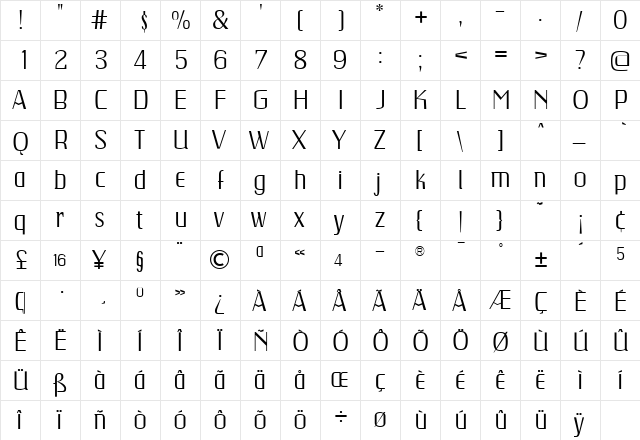
TFRainchkExpanded Light Font Preview
TFRainchkExpanded Light
TFRainchkExpanded Light Font Details
Design Context for TFRainchkExpanded Typeface
TFRainchkExpanded takes a measured approach to typography — its balanced proportions and neutral character make it a reliable workhorse for both digital and print work. The delicate stroke weight brings airiness and refinement to layouts.